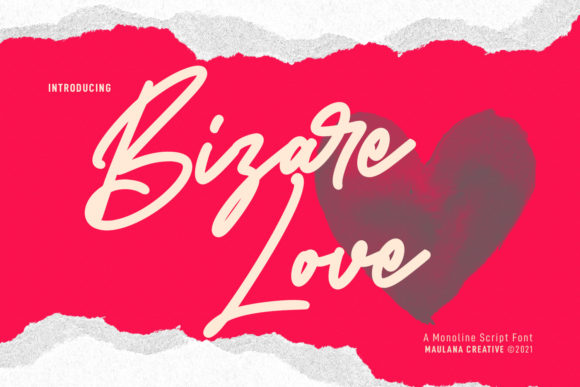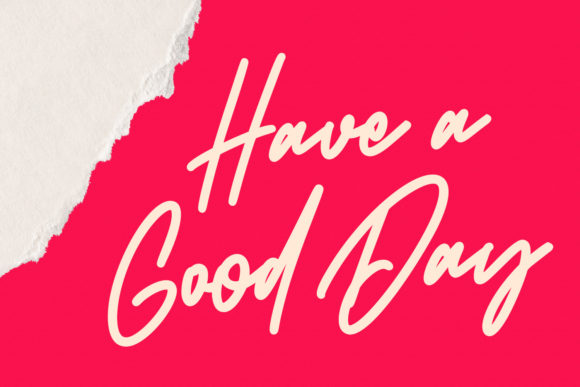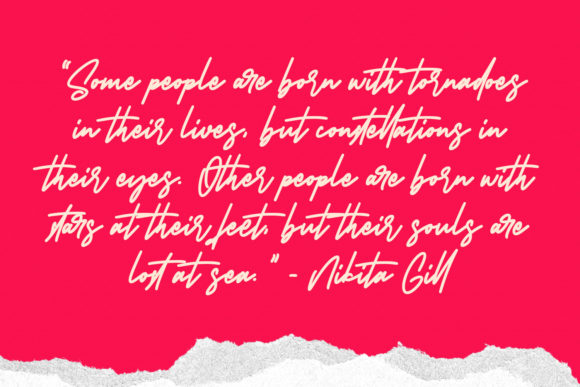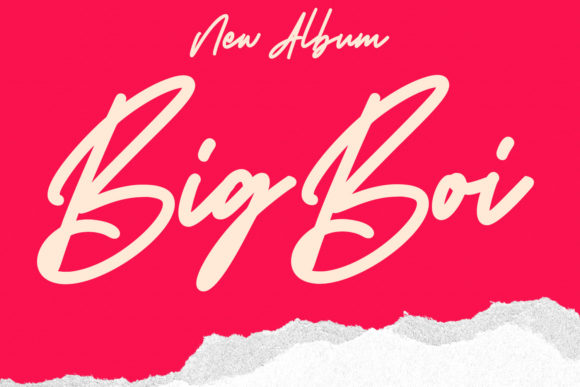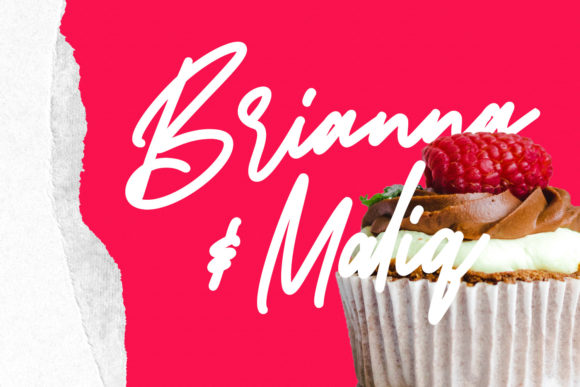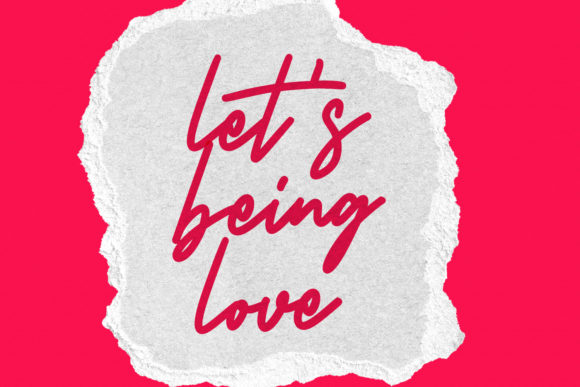
Bizare Love Monoline Script Font Font
About Bizare Love Monoline Script Font
Bizare Love is a casual script font perfect for logo design, social media posts, movie and book titles, and many more. Add it to any of your creative projects, and make stunning work with this wonderful font!